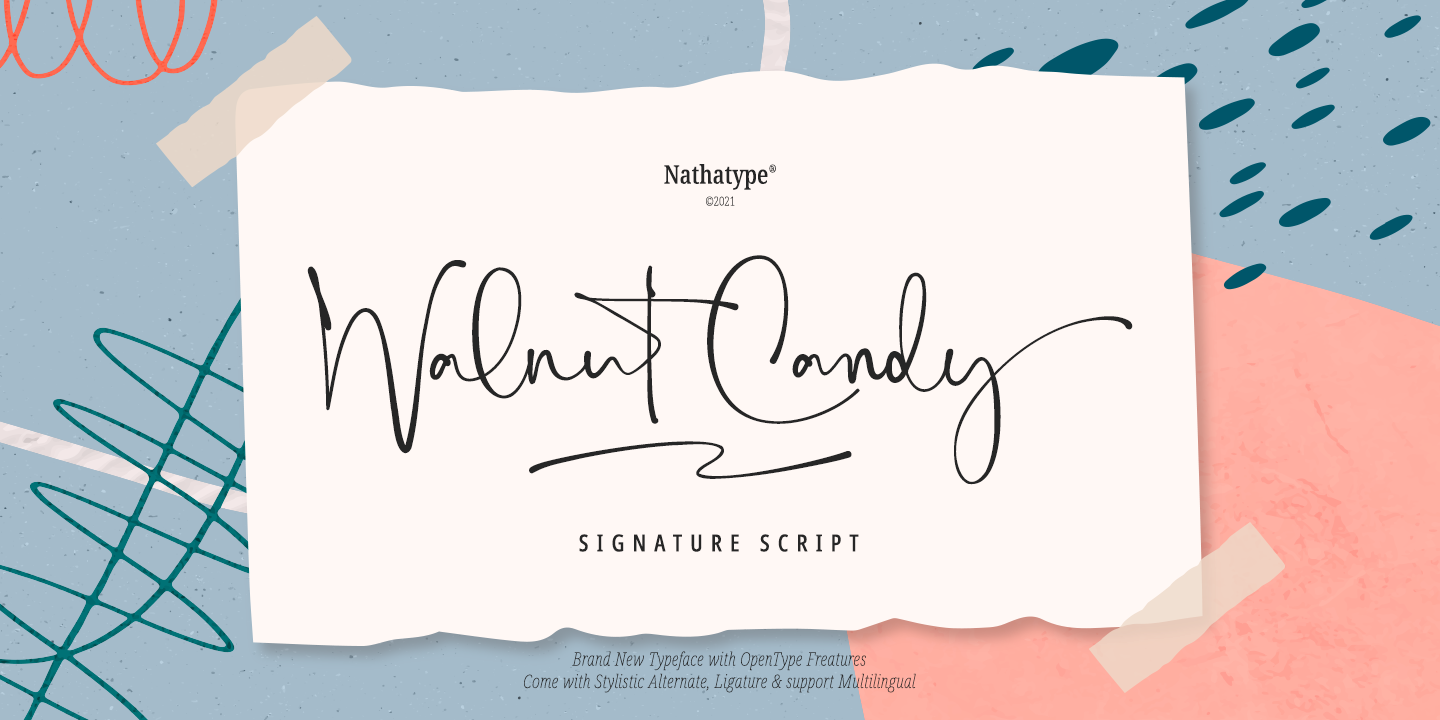
The Walnut Candy Font Free Download is an incredibly charming and whimsical display typeface, making it an excellent choice for designs that aim to convey sweetness, playfulness, and a delightful handcrafted touch. This captivating font is perfectly suited for children's book titles, bakery branding, toy packaging, invitations for sweet events, craft fair signage, and festive holiday graphics. Imagine it adding a sugary charm to a cupcake shop's logo, providing a playful bounce for a birthday party invitation, or giving a uniquely adorable feel to a handmade gift tag. Its soft, rounded forms and distinctive, almost edible appearance ensure your message is delivered with warmth and an undeniable sense of joyous innocence.
What makes Walnut Candy Font truly exciting is its ability to instantly infuse designs with a feeling of wholesome delight and gentle cheer. It's not just a decorative font; it embodies an organic softness and a whimsical character that makes it incredibly appealing. The slightly irregular baselines and charmingly rounded edges give it an authentic, hand-drawn quality that feels personal and inviting. Designers will appreciate how easily it brings a sweet, unpretentious touch to any project, making it ideal for designs that need to feel friendly, engaging, and full of heartwarming appeal.
The Walnut Candy Font family typically focuses on its singular, expressive style, as its strength lies in its inherent sweet and playful aesthetic. While primarily a display or headline font due to its distinctive nature, you might find a Regular option, with its character providing the main visual impact rather than a wide range of weights. Some versions might offer unique ligatures or alternative characters that enhance its handcrafted, sugary appearance, allowing for variations in its whimsical charm. These focused design features ensure that the Walnut Candy Font Free Download provides ample creative opportunities to craft truly charming, delightful, and visually captivating designs that resonate with joy and a touch of nostalgic sweetness.